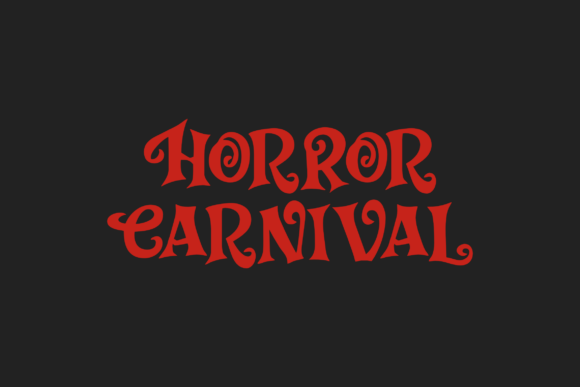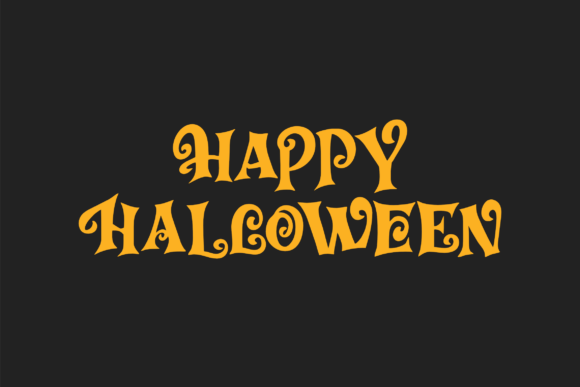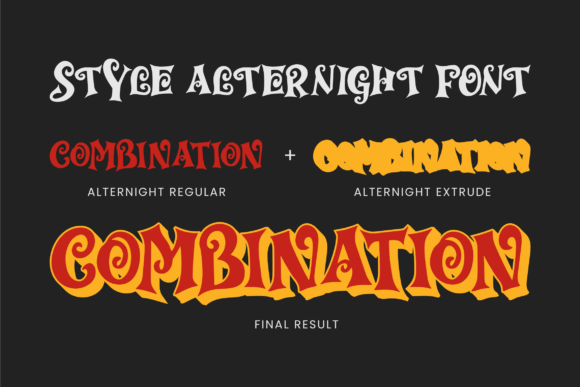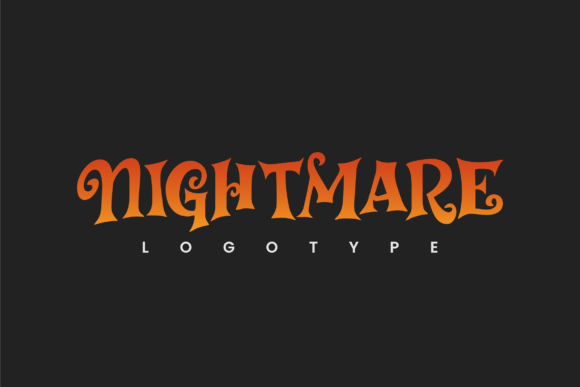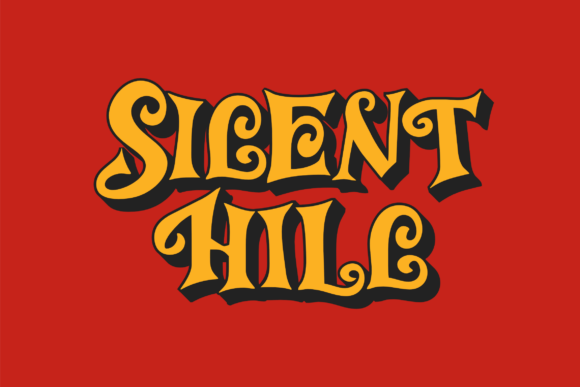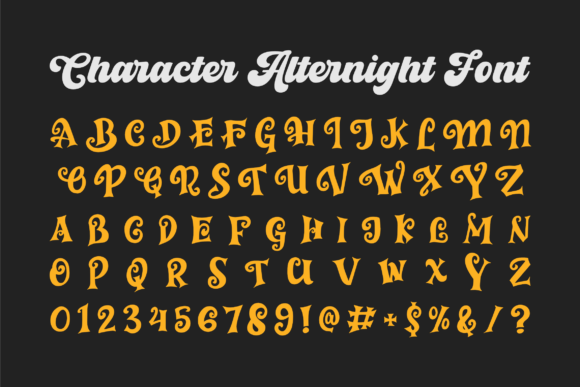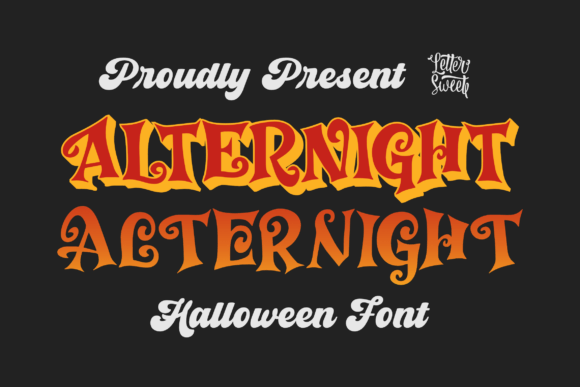
Introducing Alternight Font: The Ultimate Halloween Display Font
Are you looking for a font that can add a spooky touch to your Halloween-themed designs? Look no further than Alternight, a bold display font that embodies the classic horror-poster vibes of the past. With its thick serifs, swirling curls, and sharp silhouettes, Alternight is the perfect choice for creating eye-catching headlines that scream horror.
The Inspiration Behind Alternight
Alternight’s design is inspired by vintage comics and film posters, evoking a retro horror feel that’s sure to grab attention. The font’s bold and chunky letterforms are perfect for creating a sense of drama and tension, making it ideal for Halloween event posters, YouTube thumbnails, seasonal logos, packaging, banner ads, apparel, stickers, and podcast covers.
What Makes Alternight So Effective?
So, what sets Alternight apart from other fonts? Here are just a few reasons why it’s a top choice for designers and crafters:
- High-impact letterforms: Alternight’s bold letterforms are designed to stay legible even at a distance, making it perfect for headlines that need to pack a punch.
- Retro horror feel: Alternight’s vintage-inspired design is sure to evoke the classic horror movies and comics of the past, adding a touch of nostalgia to your designs.
- Works beautifully with gradients and effects: Alternight looks amazing with orange-to-red gradients, outlines, and shadows, allowing you to add depth and dimension to your designs.
- Balanced spacing and kerning: Alternight’s clean and professional layout makes it easy to use and read, even at smaller sizes.
Perfect for Halloween Campaigns
Alternight is specifically designed for Halloween campaigns, making it the perfect choice for:
- Halloween event posters: Create eye-catching posters that will grab attention and drive attendance.
- YouTube thumbnails: Stand out from the crowd with bold and spooky thumbnails that will draw viewers in.
- Seasonal logos and packaging: Add a touch of horror to your branding and packaging with Alternight’s bold and chunky letterforms.
- Banner ads and apparel: Use Alternight to create eye-catching ads and apparel that will grab attention and drive sales.
- Stickers and podcast covers: Add a touch of horror to your stickers and podcast covers with Alternight’s bold and legible letterforms.
Why Alternight Converts
Alternight is more than just a font – it’s a design solution that’s specifically designed to drive conversions. Here are just a few reasons why:
- Instant impact: Alternight’s bold and chunky letterforms are designed to grab attention and make a lasting impression.
- Clear readability: Alternight’s legible letterforms make it easy for viewers to quickly read and understand your message.
- Premium look and feel: Alternight’s vintage-inspired design gives your designs a premium and high-end look that’s sure to impress.
If you’re looking for a font that can add a spooky touch to your Halloween-themed designs, look no further than Alternight. With its bold and chunky letterforms, retro horror feel, and high-impact design, Alternight is the perfect choice for creating eye-catching headlines that scream horror. Whether you’re a designer or crafter, Alternight is a premium font that’s sure to boost clicks and conversions for your Halloween campaigns.